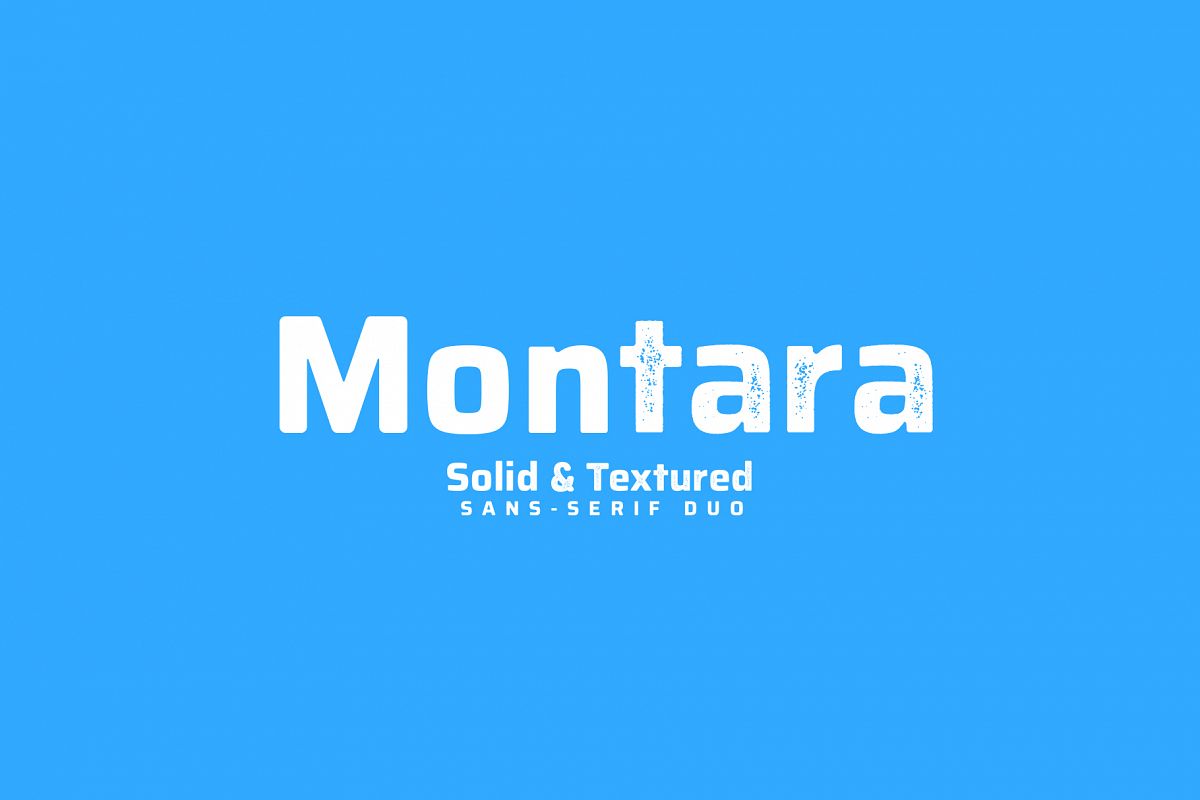
Montara - Sans serif duo Clean+Textured version
Montara - Regular
Montara - Textured
Introducing Montara, a clean and textured sans serif font duo perfect for headlines, logos, magazines, websites, apps and much more. You will get :-
Montara - Sans serif duo Clean+Textured version